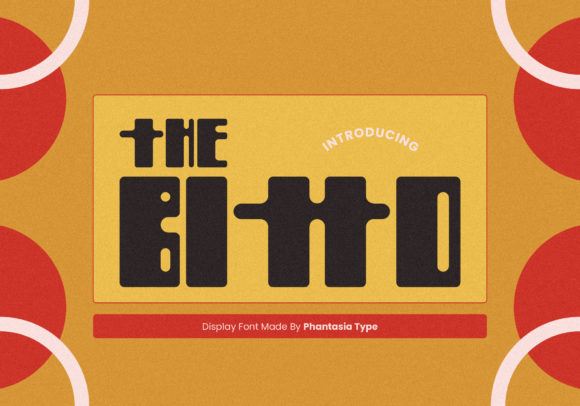
Introducing Bitto Font: A Unique and Fresh Display Font for Experimental Designs
Are you tired of using the same old fonts for your design projects? Do you want to add a touch of uniqueness and freshness to your crafty endeavors? Look no further than Bitto Font, a display font that is perfect for experimental, retro, and geometrical theme designs. In this article, we’ll take a closer look at Bitto Font and explore its features, benefits, and uses.
What is Bitto Font?
Bitto Font is a display font designed to add a bold and eye-catching touch to your designs. Its unique and fresh style makes it perfect for designers who want to experiment with new and innovative typography. With its geometrical and retro-inspired aesthetic, Bitto Font is sure to grab attention and leave a lasting impression.
Key Features of Bitto Font
- Unique and Fresh Style: Bitto Font boasts a one-of-a-kind design that will set your projects apart from the rest.
- Experimental and Retro Aesthetic: The font’s geometrical and retro-inspired style makes it perfect for experimental and retro-themed designs.
- Display Font: Bitto Font is designed to be used as a display font, making it ideal for headlines, titles, and other prominent text elements.
- Crafty and Creative Projects: The font’s unique style makes it a great choice for crafty and creative projects, such as handmade crafts, DIY tutorials, and more.
Benefits of Using Bitto Font
So why should you choose Bitto Font for your design projects? Here are just a few benefits of using this unique display font:
- Adds Visual Interest: Bitto Font’s bold and eye-catching design is sure to add visual interest to your projects.
- Stand Out from the Crowd: With its unique and fresh style, Bitto Font will help your projects stand out from the crowd.
- Perfect for Experimental Designs: The font’s experimental and retro aesthetic makes it perfect for designers who want to push the boundaries of traditional typography.
- Easy to Read: Despite its bold and decorative style, Bitto Font is easy to read, making it perfect for use in headlines and titles.
How to Use Bitto Font
So how can you use Bitto Font in your design projects? Here are a few ideas to get you started:
- Headlines and Titles: Use Bitto Font to create bold and eye-catching headlines and titles for your blog posts, articles, and other written content.
- Social Media Graphics: Add a touch of uniqueness and freshness to your social media graphics with Bitto Font.
- Posters and Flyers: Use Bitto Font to create bold and attention-grabbing posters and flyers for your events, promotions, and products.
- Crafty Projects: Add a touch of personality and whimsy to your crafty projects, such as handmade crafts, DIY tutorials, and more.
In conclusion, Bitto Font is a unique and fresh display font that is perfect for experimental, retro, and geometrical theme designs. With its bold and eye-catching style, Bitto Font is sure to add visual interest and personality to your design projects. Whether you’re a designer, crafter, or DIY enthusiast, Bitto Font is a great choice for anyone looking to add a touch of uniqueness and freshness to their work.